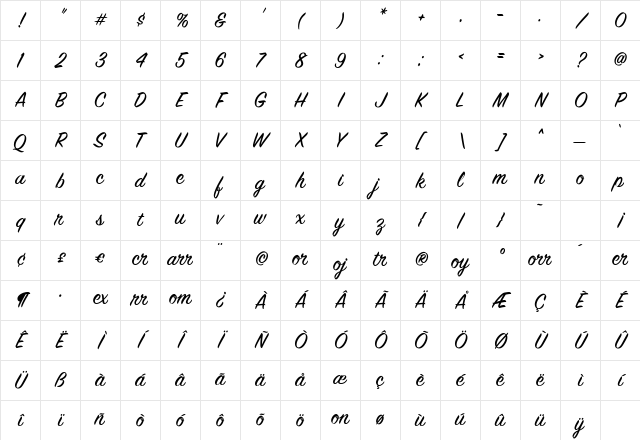
SignPainter Medium
Complete SignPainter Medium glyph index. Displaying only characters natively supported by SignPainter Medium font.
Design Context for SignPainter
SignPainter is a composed and adaptable typeface that performs quietly and consistently across a wide range of design contexts.